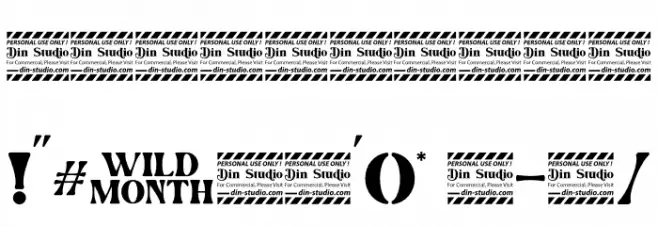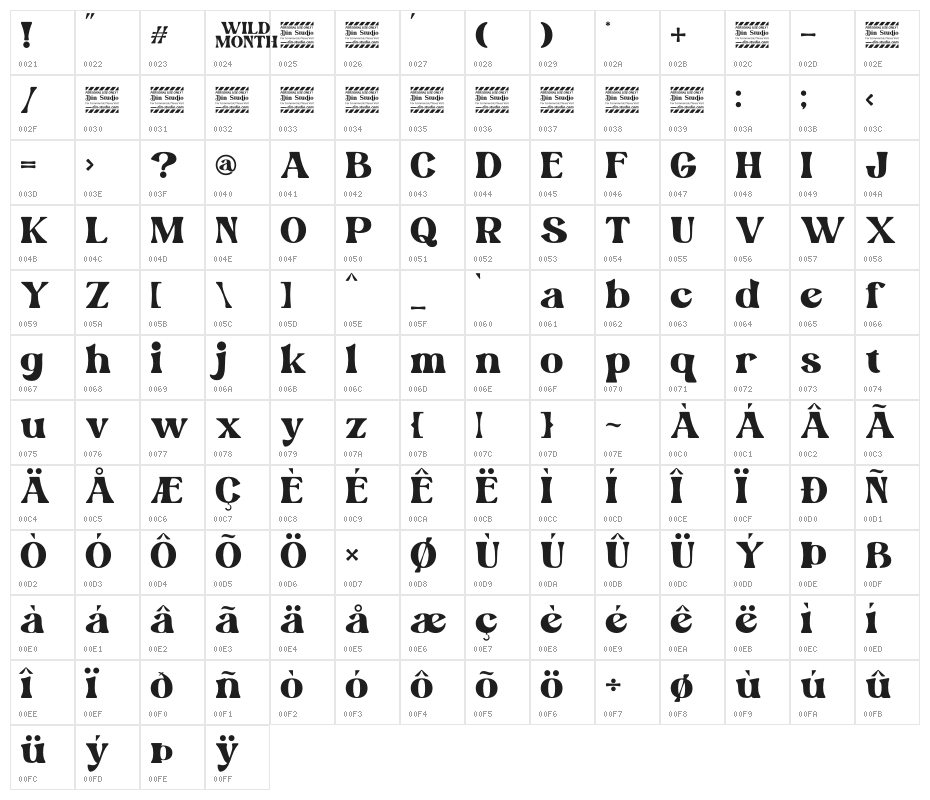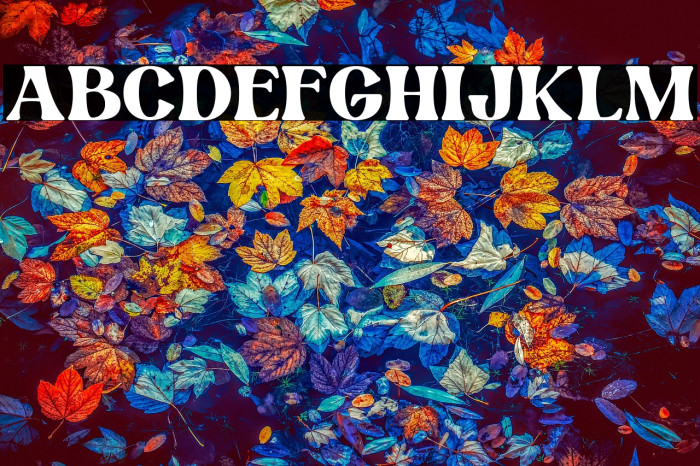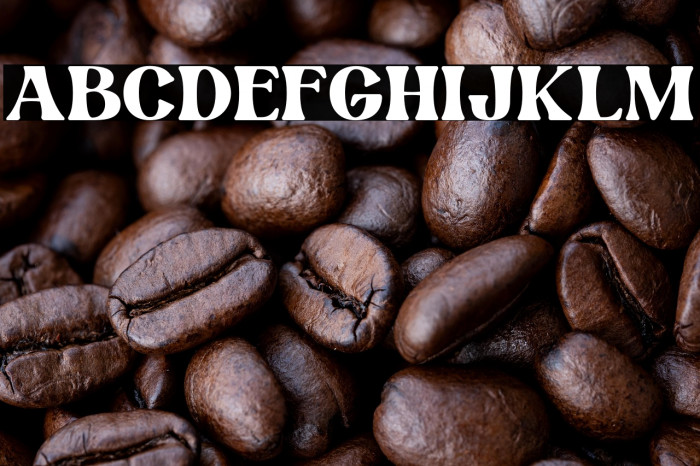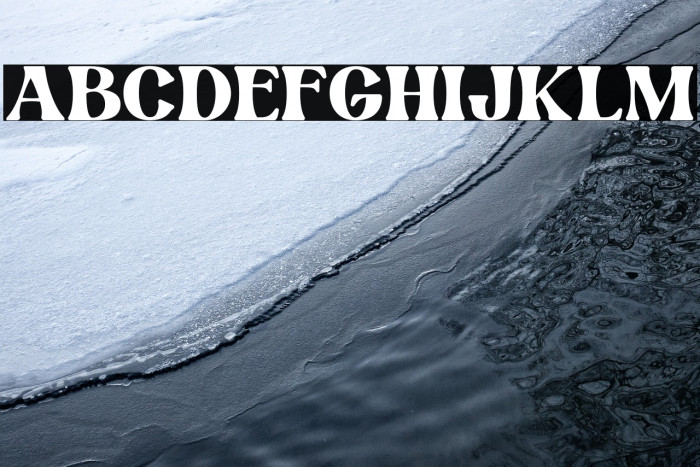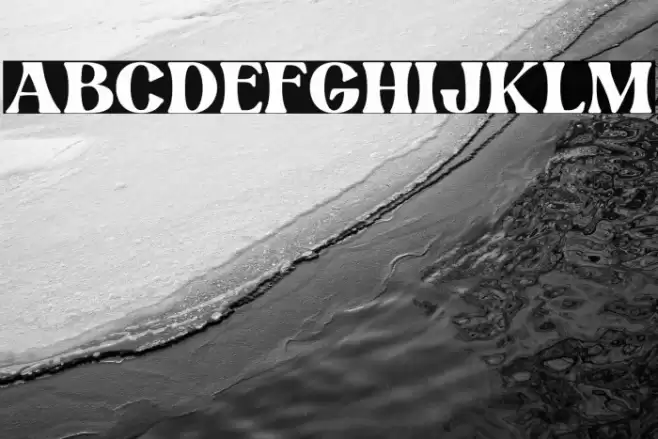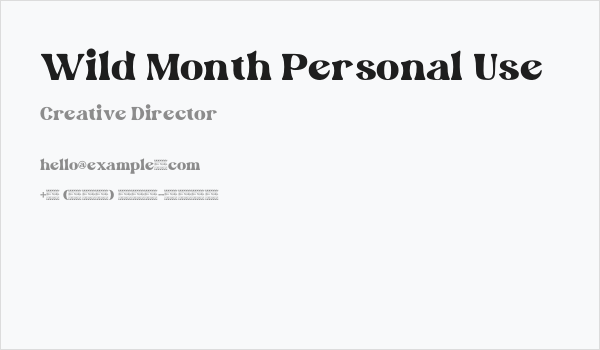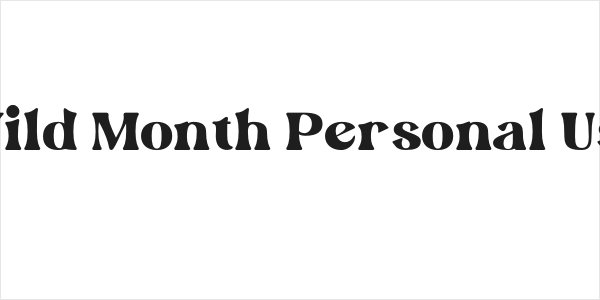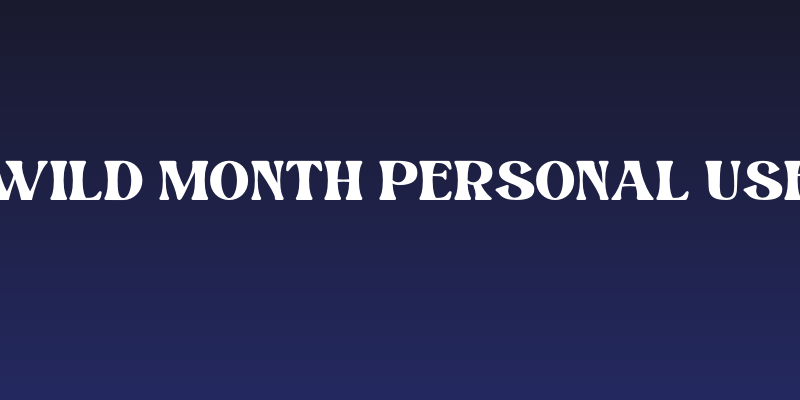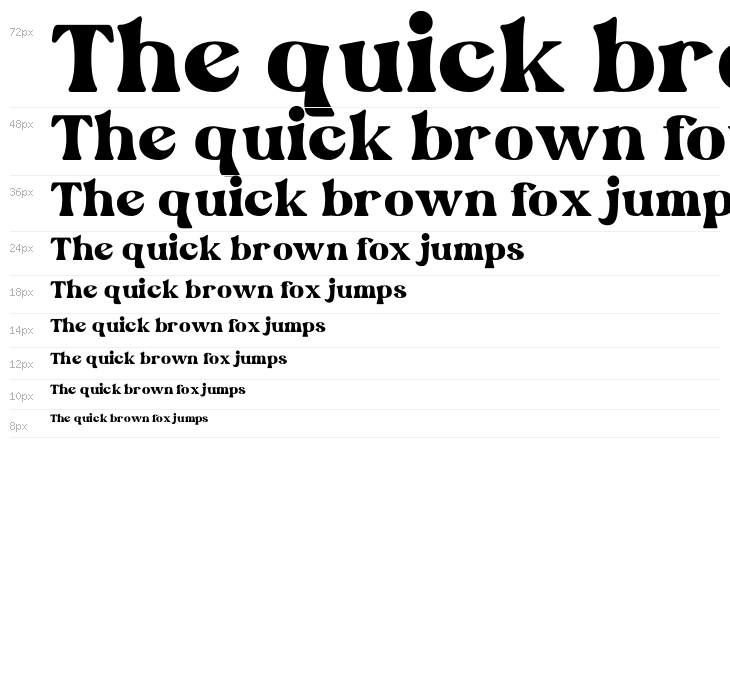
Wild Month Personal Use Font
Wild Month Personal Use Description
This font features bold, dynamic strokes with a playful and slightly whimsical style. The characters have a unique flair, with varying stroke widths that create a sense of movement and energy. The uppercase letters are robust and commanding, while the lowercase letters maintain a consistent style with subtle curves and angles. The numbers and special characters are designed to match the overall aesthetic, making them suitable for attention-grabbing designs. The font's distinctive appearance makes it ideal for creative projects that require a touch of personality and flair.
| Proposed Projects | Ideal for posters, branding, headlines, and creative design projects that require a bold statement. |